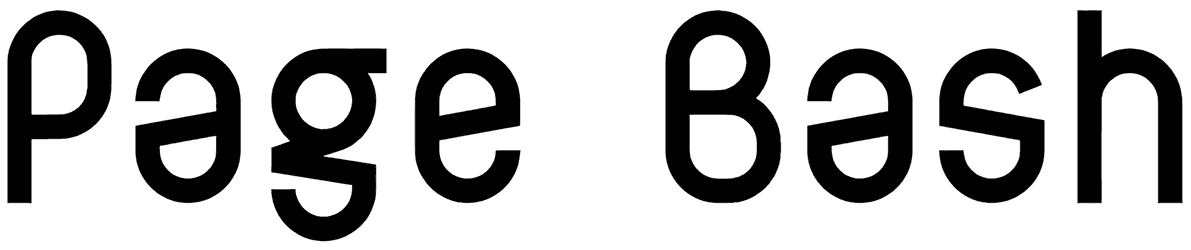
While choosing a suitable font for designing eye-grabbing posters, video game banners, digital brochures, social media posts, and product packaging would be really hard for novice graphic designers, a magical sans serif font such as Page Bash would save them a lot of time and energy.
This artwork can bring a sense of futuristic modernity, momentum, or tenderness to your projects and take them to a higher level of quality.